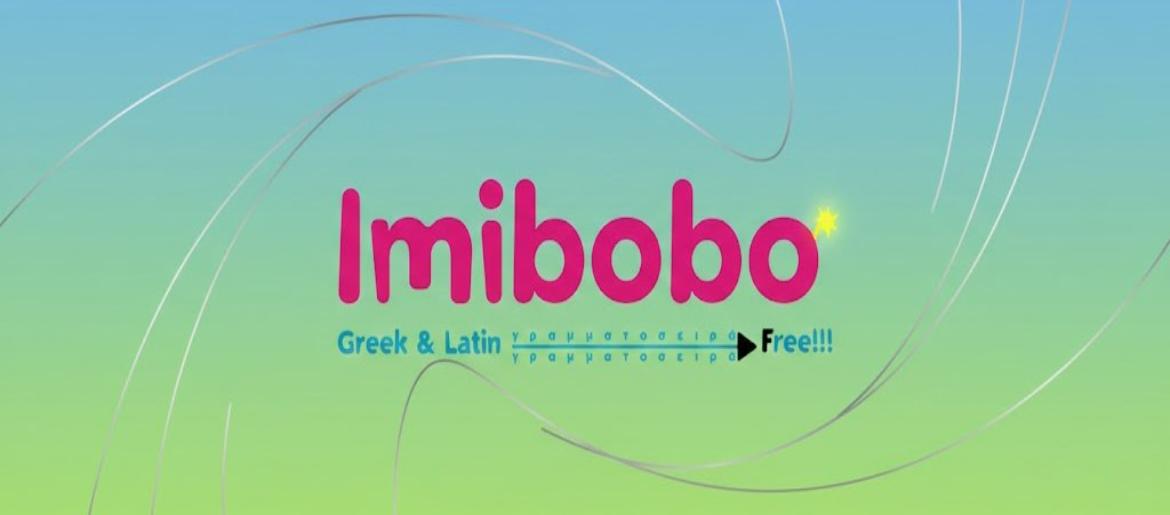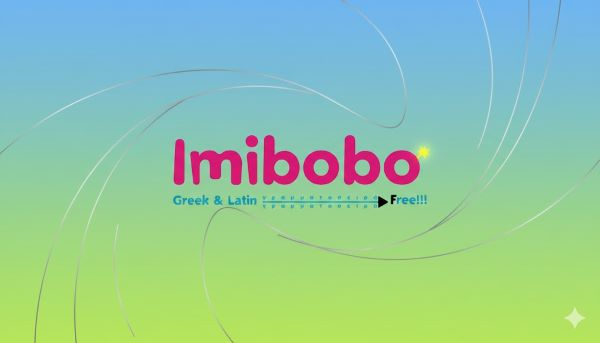
Imibobo Font
Imibobo Font is a playful display typeface featuring rounded shapes and cheerful styling that creates a friendly and energetic personality. It is suitable for children’s designs, branding, packaging, posters, and social media graphics. Its bold yet approachable character helps designs stand out while fitting perfectly into colorful, fun, and expressive free fonts collections.
➤ Font Name: Imibobo
➤ Designer: Christos Lentzaris
➤ Style: Display